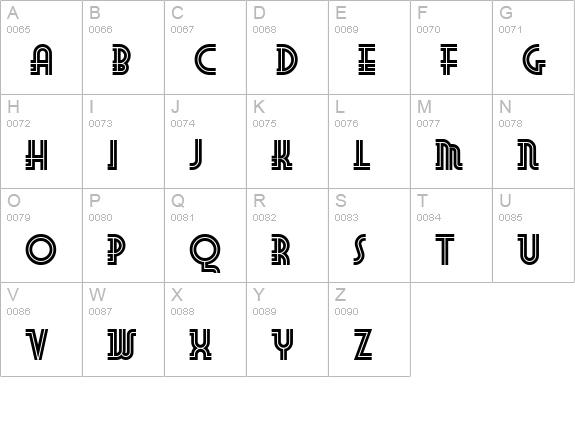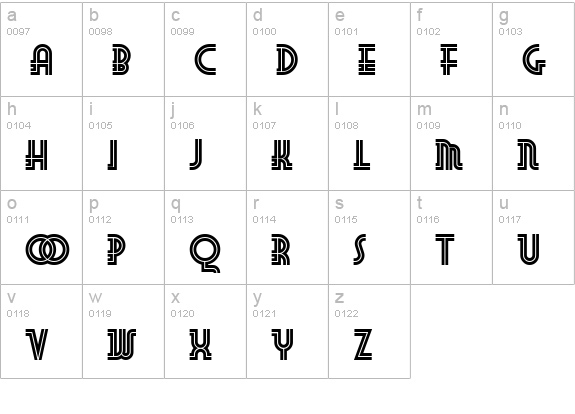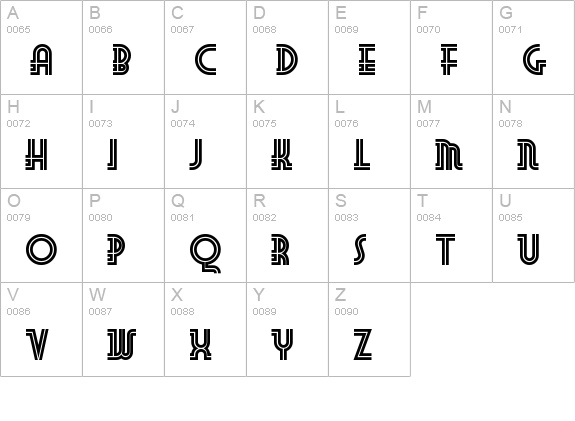
Introducing the exquisite and versatile Foo Bar Inline NF font, a stunning display typeface that will elevate your designs to new heights. With its intricate inline detailing and modern aesthetic, this font is perfect for adding a touch of sophistication to any project. What sets Foo Bar Inline NF apart is not only its sleek design but also its accessibility - it is available for free download at FontsMarket.com. This means that you can easily incorporate this elegant font into your work without any hassle or cost. Whether you're designing a logo, creating a poster, or crafting a website, Foo Bar Inline NF is sure to make a statement. Its clean lines and contemporary style will captivate your audience and leave a lasting impression. Download this font today and unlock a world of possibilities for your creative projects.